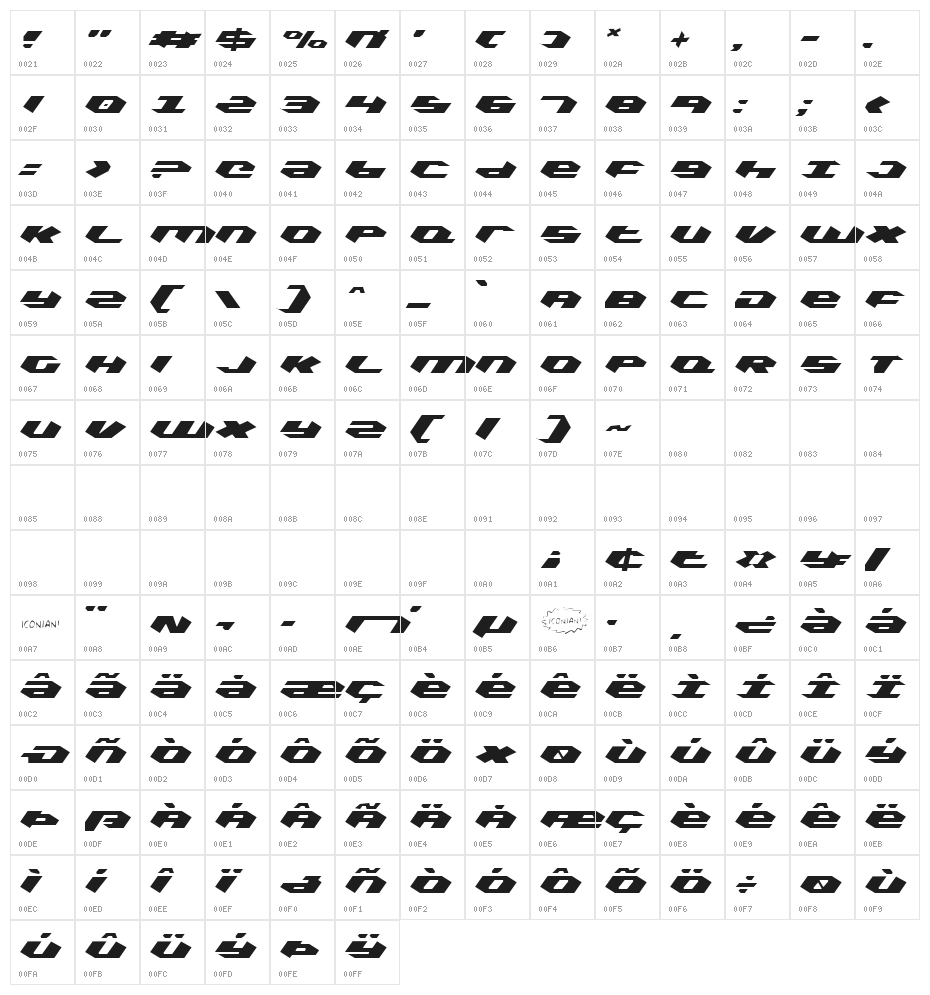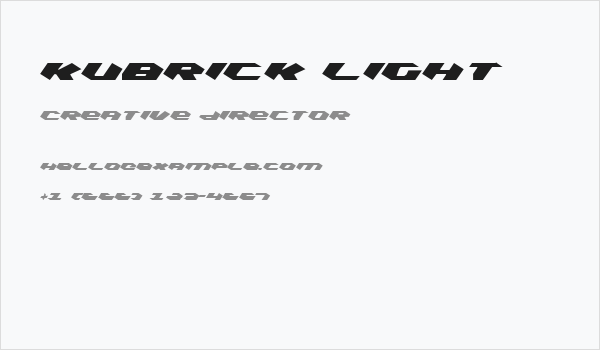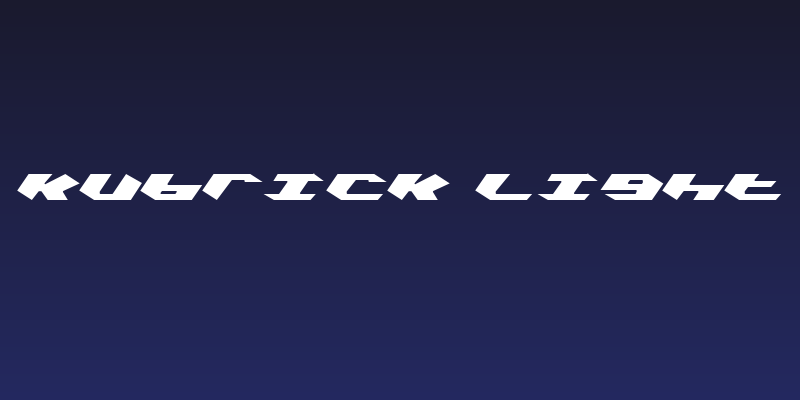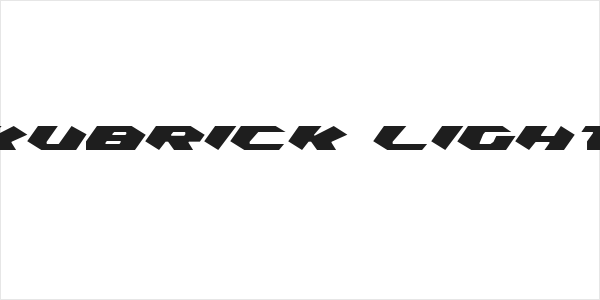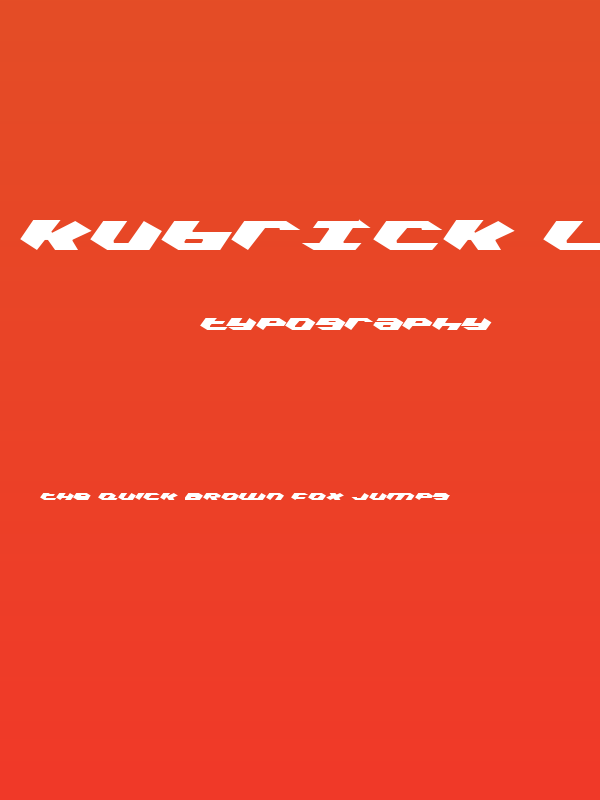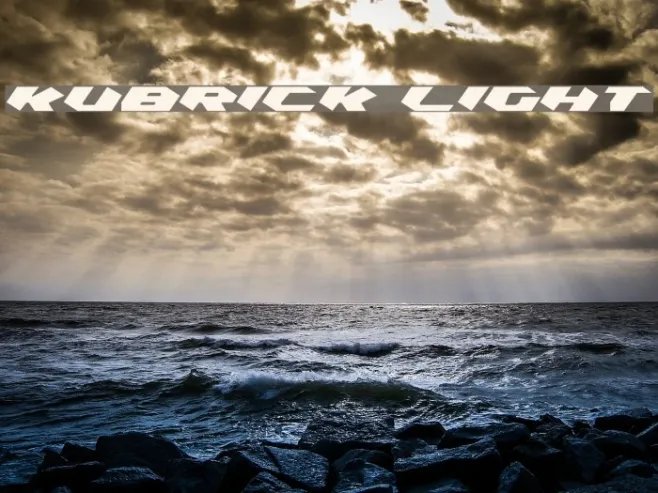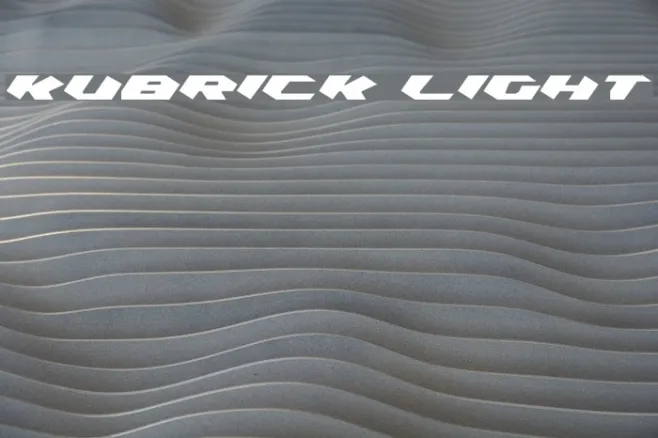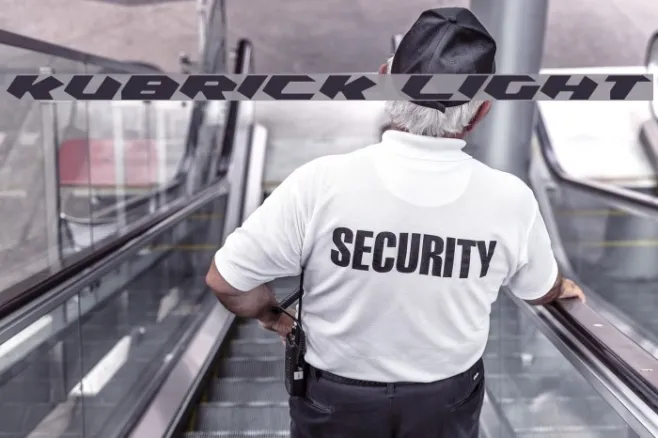
Kubrick Light Font
Kubrick Light Description
This font features a bold, futuristic design with angular, geometric shapes that create a dynamic and energetic appearance. Each character is crafted with sharp edges and a slightly italicized slant, giving the font a sense of motion and speed. The uppercase and lowercase letters maintain a consistent style, with the lowercase being slightly smaller and more compact. The numerals and special characters follow the same design principles, ensuring a cohesive look across all elements. The font's unique style makes it stand out, ideal for projects that require a modern and edgy aesthetic.
| Proposed Projects | Perfect for sci-fi themed designs, video game graphics, tech branding, and modern posters. |